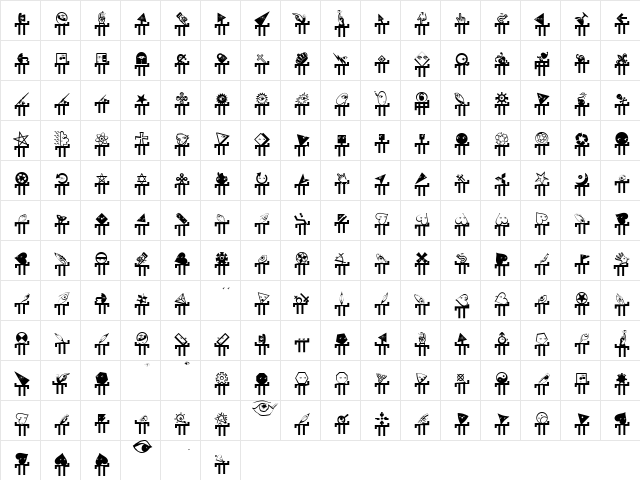
HypocriSymbols Regular
Design Context for HypocriSymbols Typeface
HypocriSymbols is a composed and adaptable typeface that performs quietly and consistently across a wide range of design contexts.